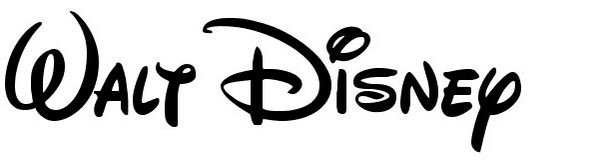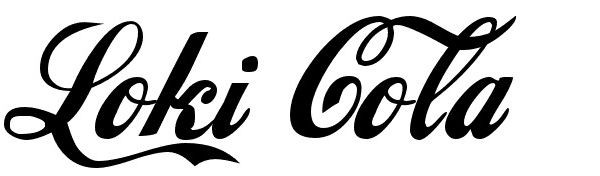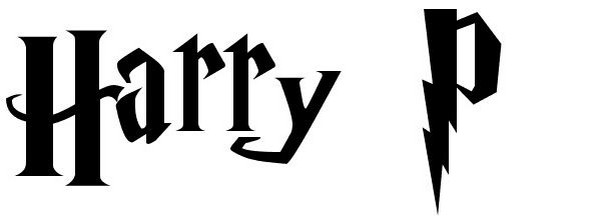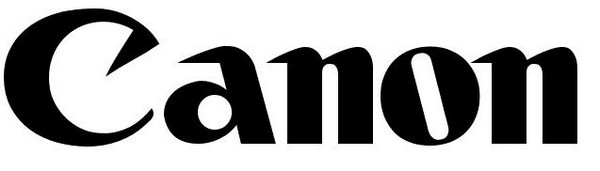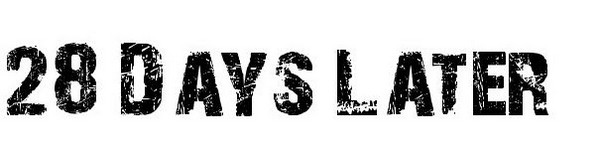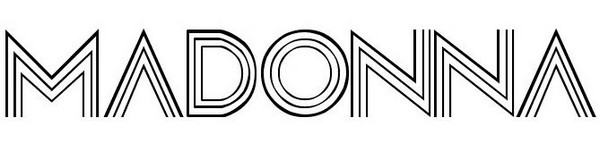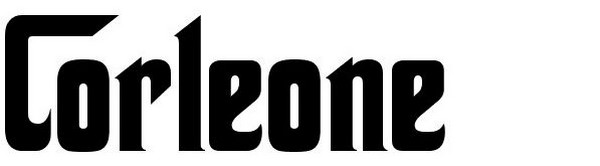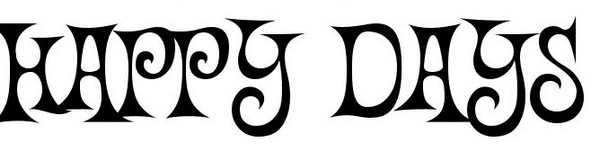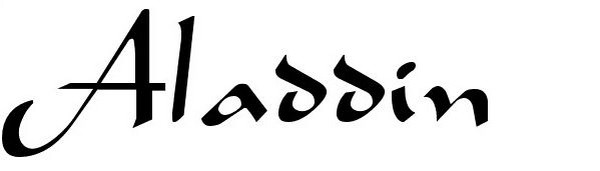
20 Free Famous Fonts to Download
We all saw fonts that later on became iconic. We craved for them, we tried to draw them when we were kids. One example is the Star Wars font which I absolutely love and which probably filled dozens of pages on the back of my notebooks when I was in middle school. Of course, there are other famous fonts that made my childhood and youth more beautiful such as the font that was on the Godfather posters, the Walt Disney font, the Harry Potter font or the Yahoo one.
However, back when most of these were created, you couldn’t reproduce them just by clicking a few buttons or by using a font recognition programme. Things were more difficult back in the old and good days. In most cases you could only try and try again and hopefully you would come at least to something reasonably resembling to that font. Or, if you were lucky enough to have a friend talented at drawing, then maybe you could’ve got something worthy of putting on your wall.
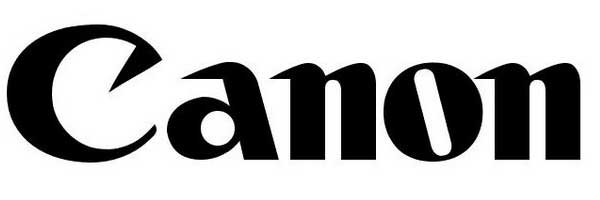
Nevertheless, those were difficult days compared with today when you can basically get any font that you want in a couple of minutes. However, bear this list in mind and make sure it gets into your favourites. Star Wars, Corleone or Walt Disney are only just some of the fonts that you’ll find below. All together there are 20 famous fonts each with its own cool and unique characteristics. More important you can download fonts for free if you just click their names.
Walt Disney font
Loki Cola font
Harry P font
Canon font
Star Jedi font
28 Days Later font
Madonna font
Rolling Rocker fonts
Magic School One font
Blade Runner font
Corleone font
Happy Days font
Simpsons Font
Aladdin font
Yahoo
Transformers font
Calvin and Hobbes font
Will and Grace font
Nickelodeon font